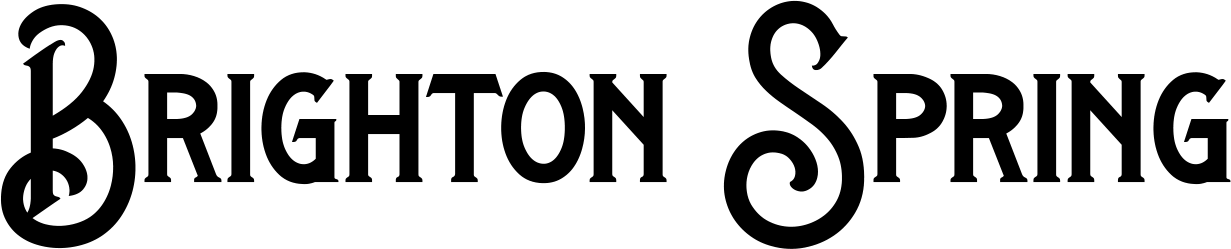
Brighton Spring Font
Brighton Spring is a retro font style that gives an old vibe to your customers. This case is a set of 2 distinct versions and doesn’t include lowercase letters. It can be utilized for a host of various projects such as movie posters, flyers, book covers, etc. Just give it a shot and see how the result inspires every single person.